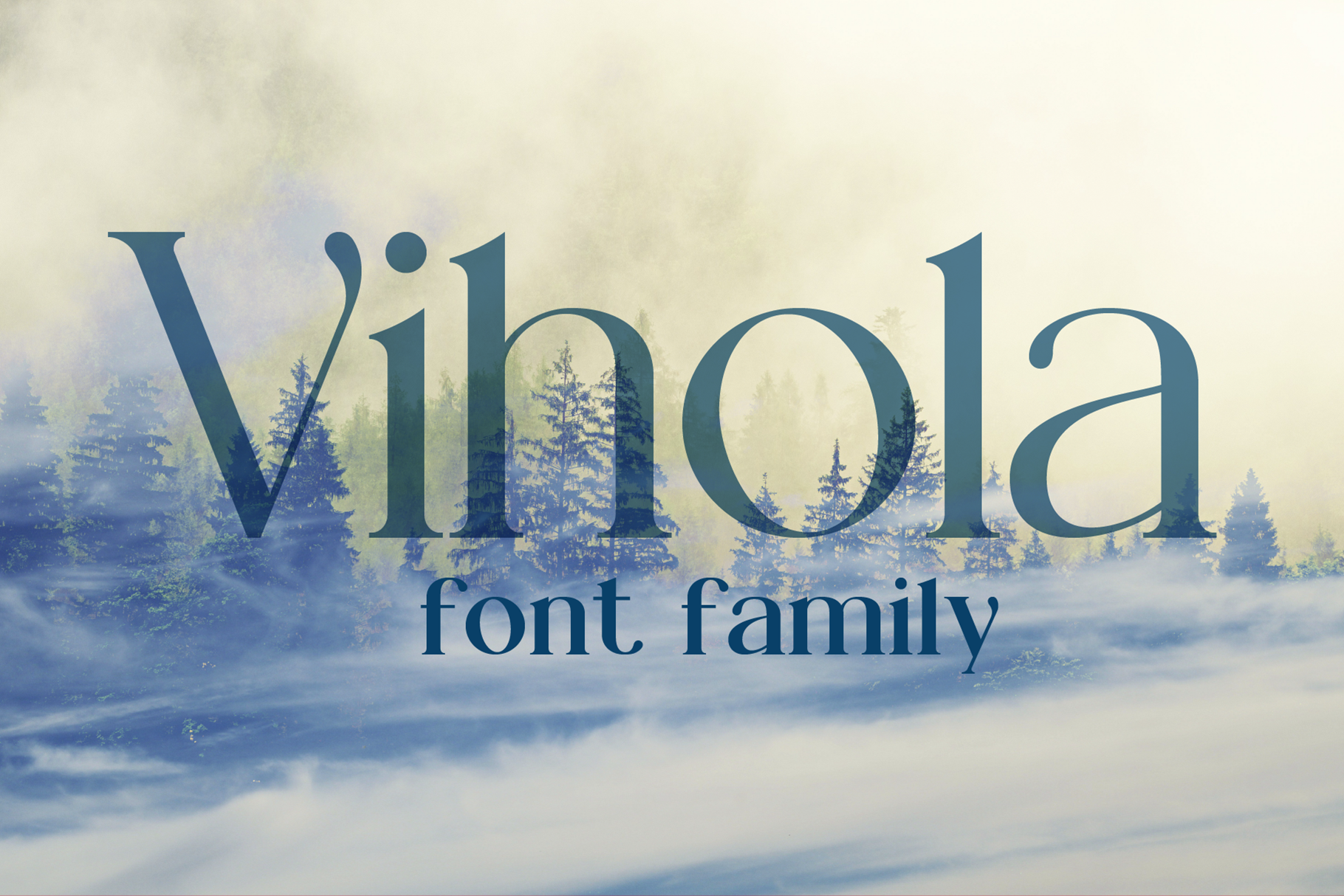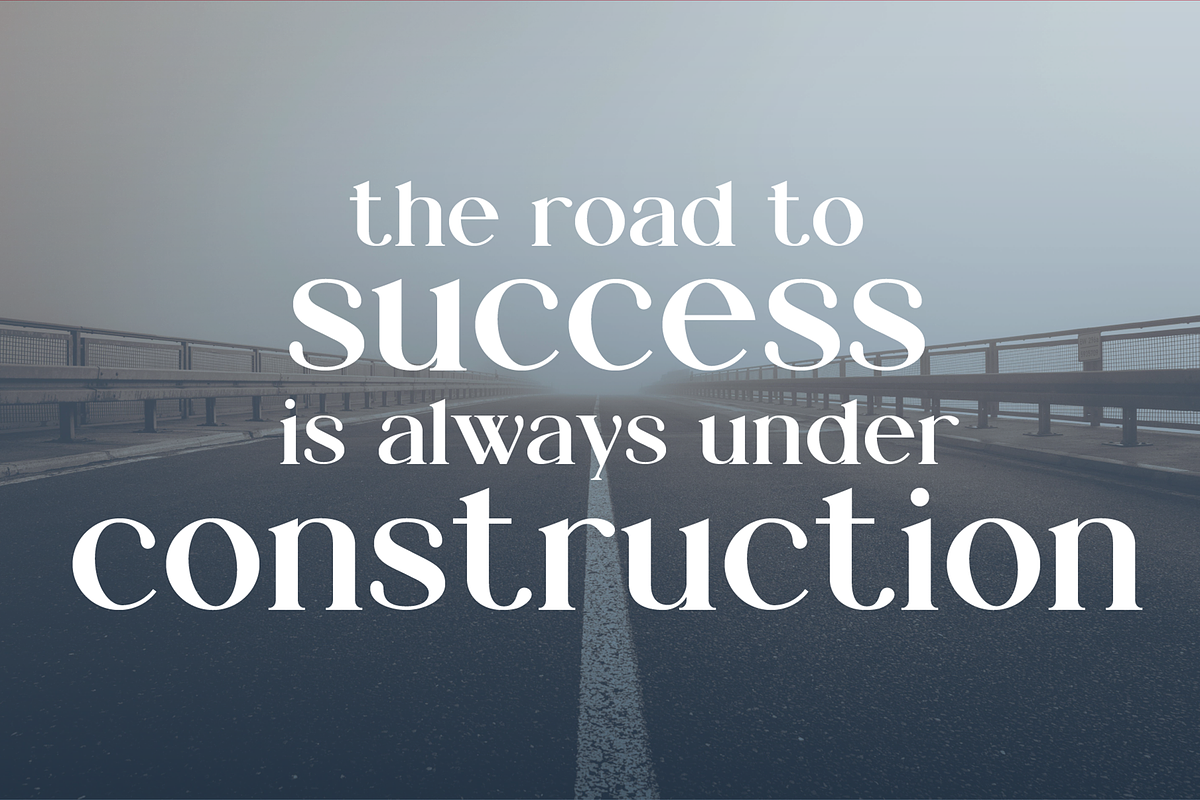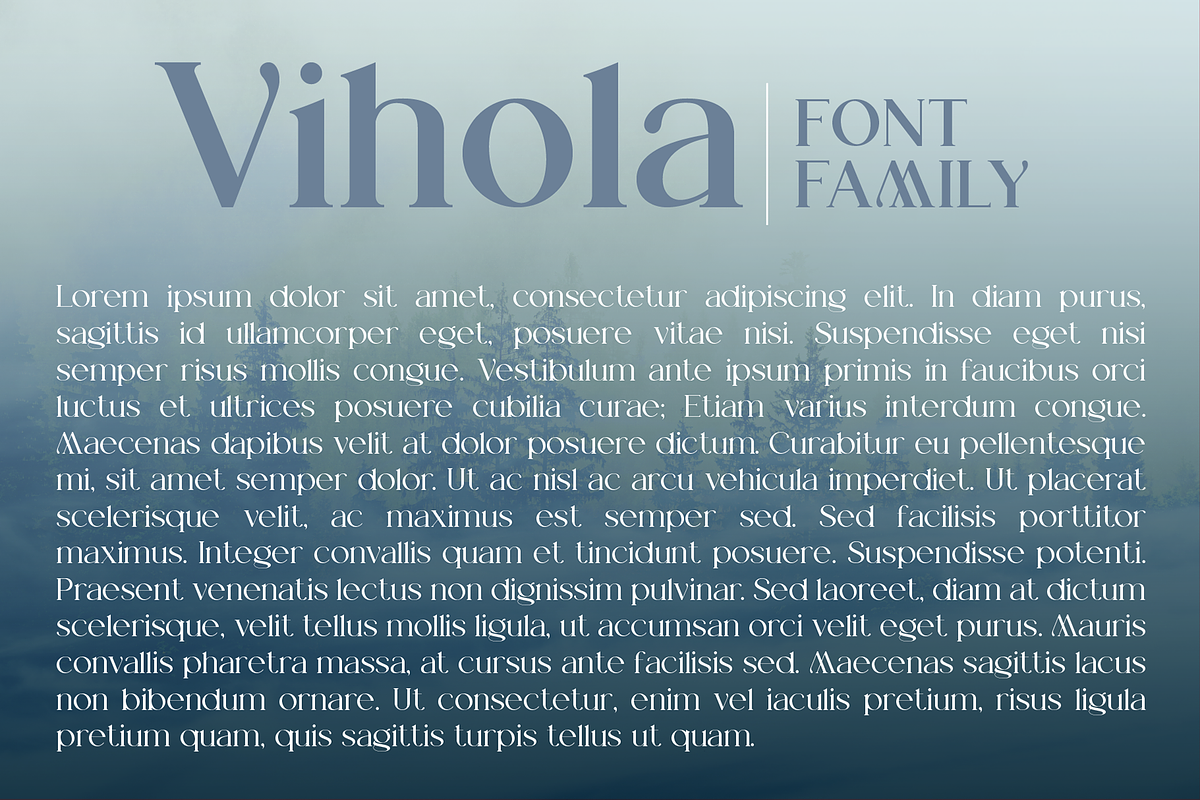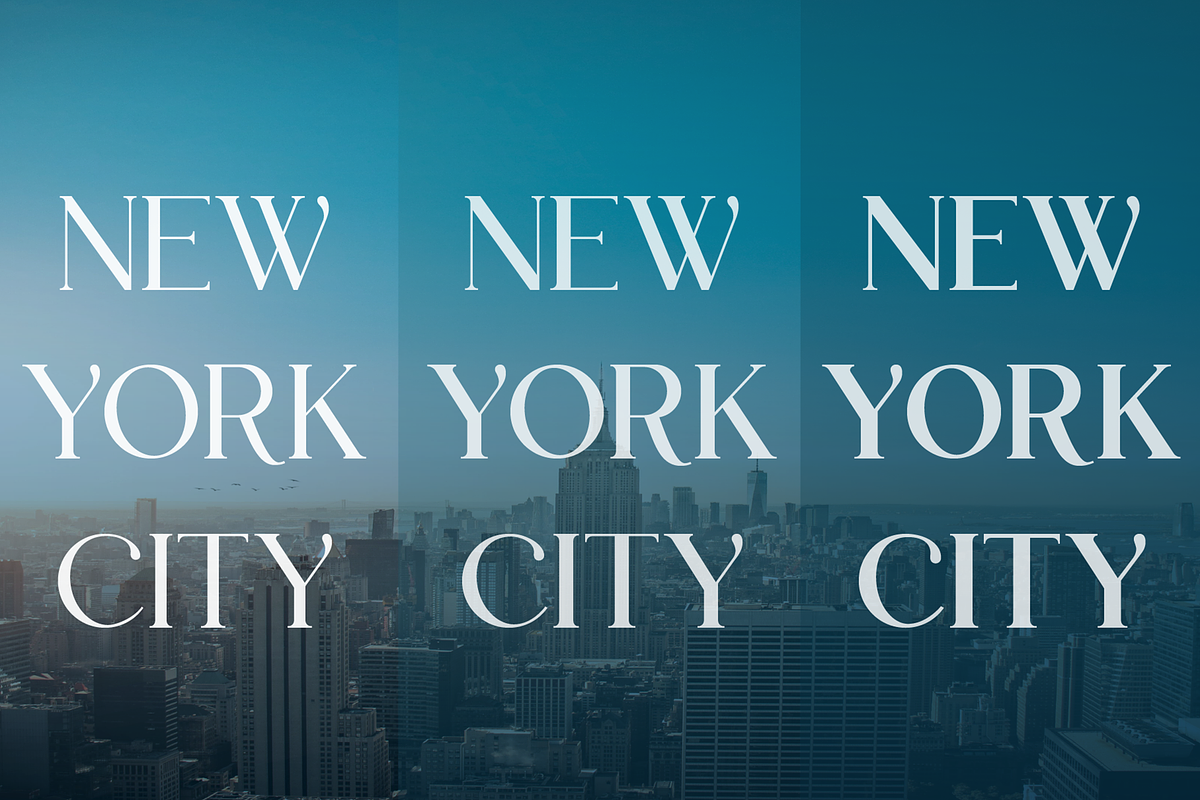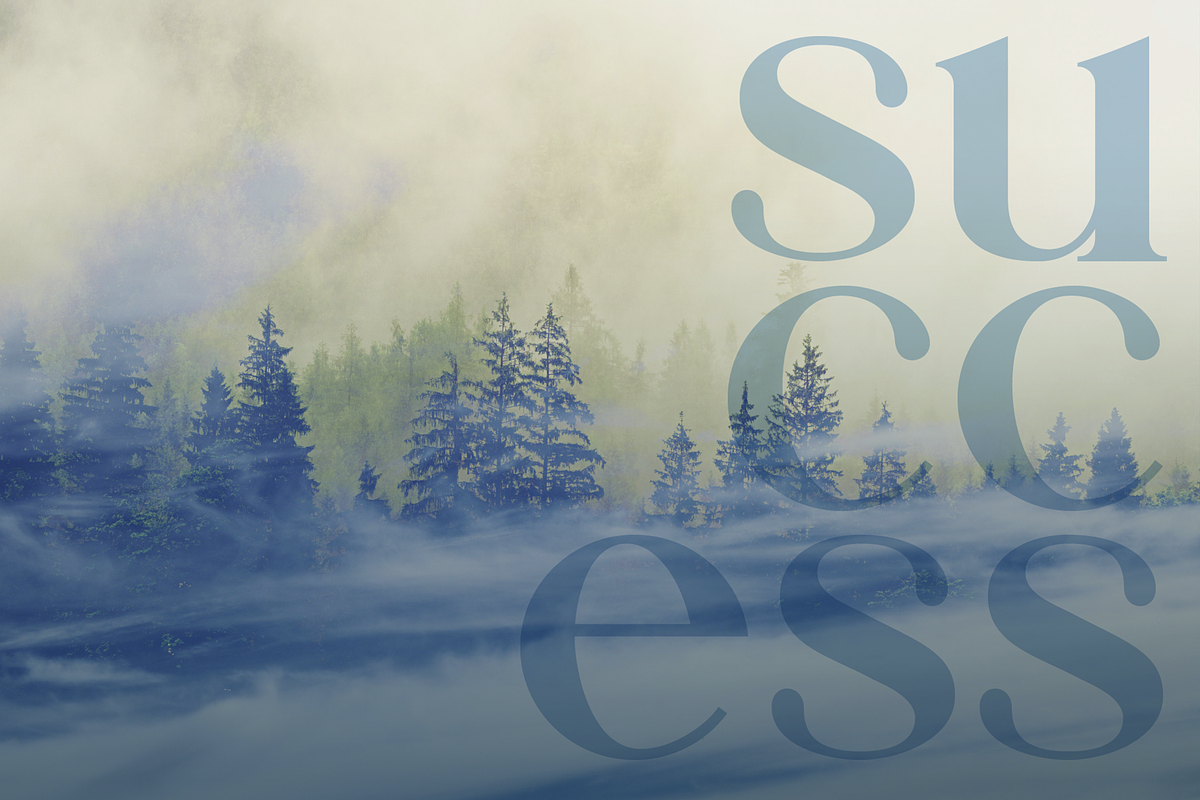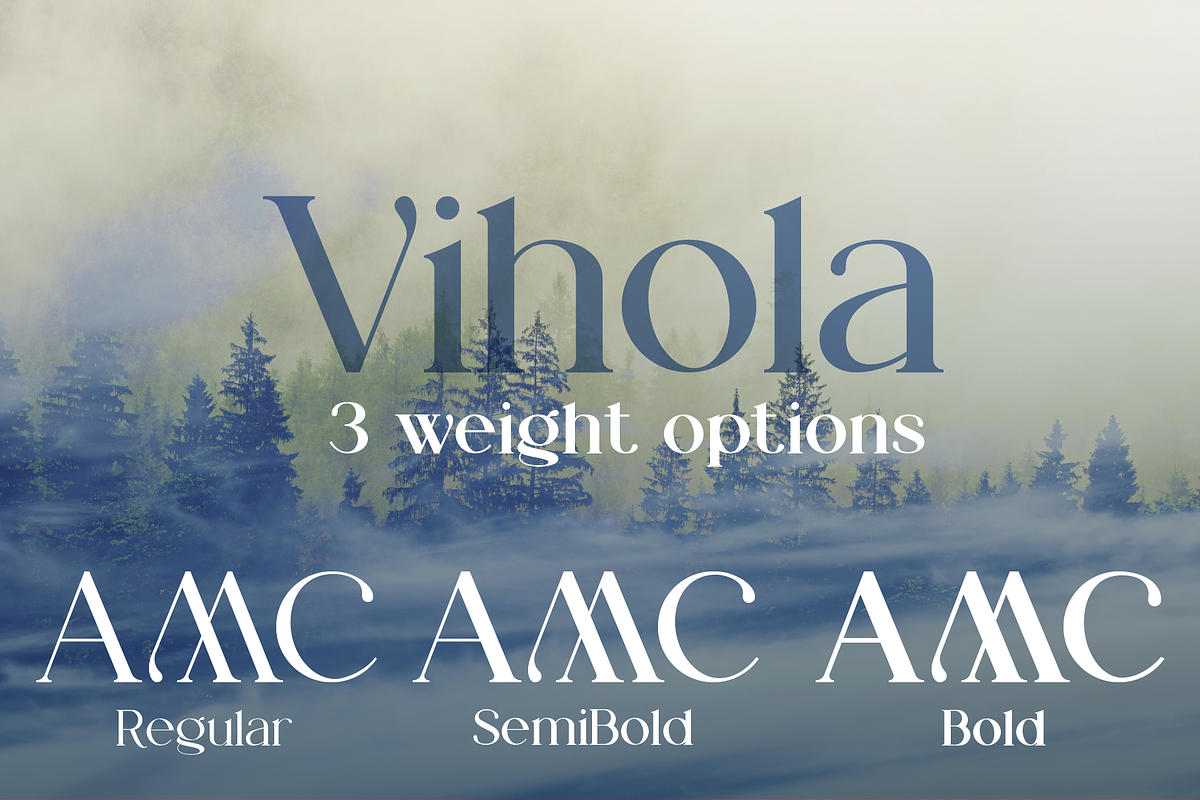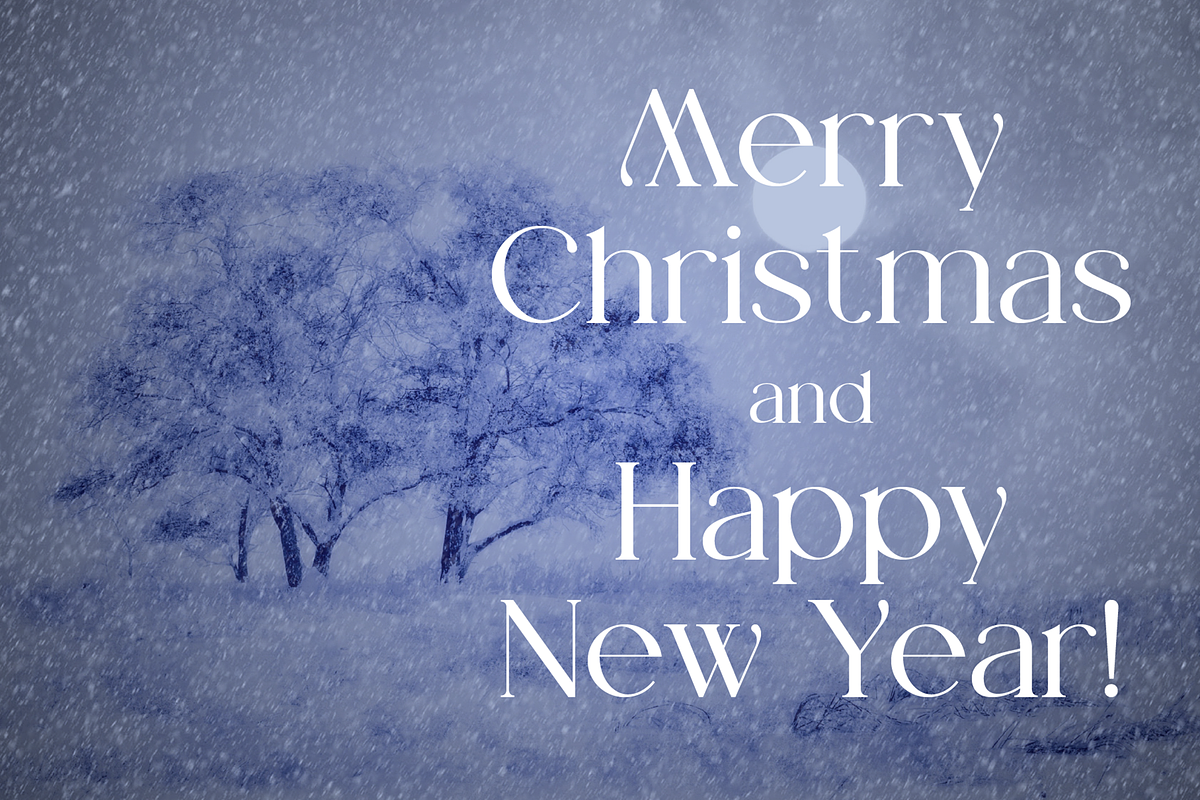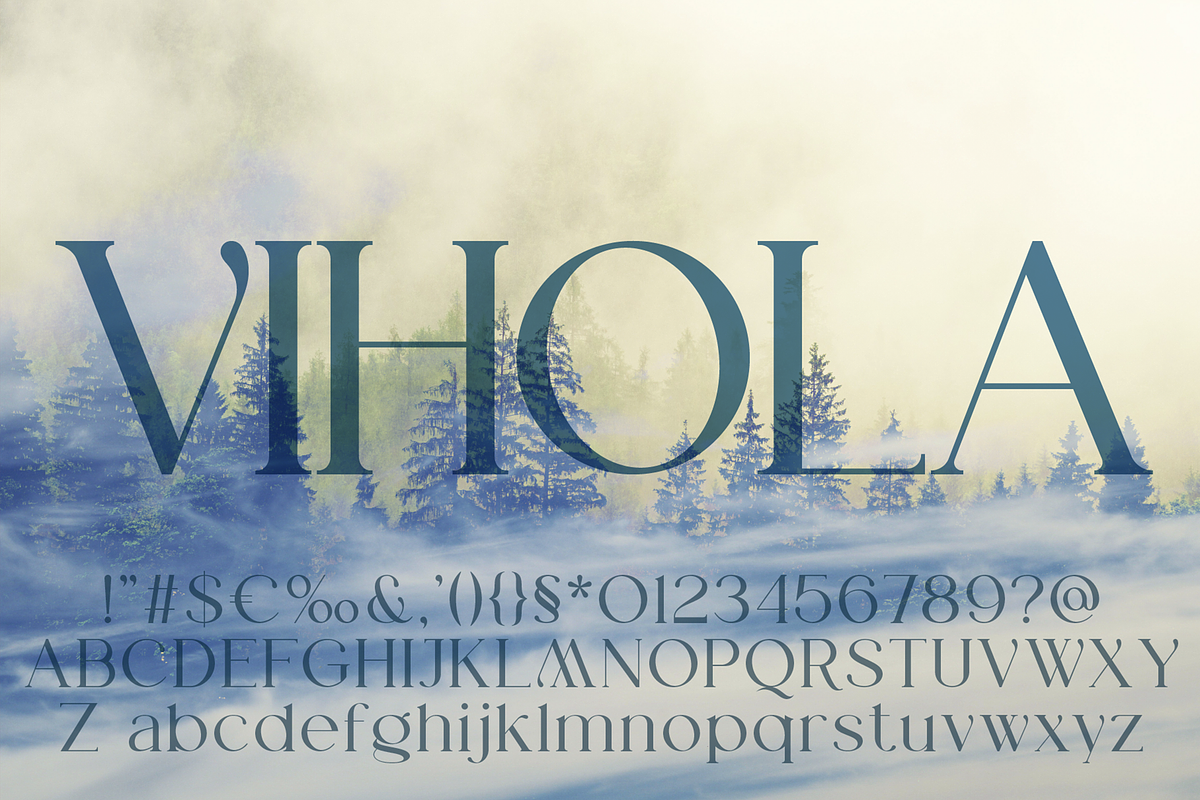
Vihola Font family
Vihola is a modern and elegant serif font that features both upper and lower case characters, supporting a wide range of scripts including Latin, Cyrillic, Latin Eastern Europe, Turkish, Baltic, and more, with over 500 symbols available. The Vihola family includes three font styles: Regular, SemiBold, and Bold, making it versatile for various applications. This font is ideal for branding, poster creation, and other graphic design projects, as well as for word processing tasks, ensuring a polished and professional appearance in all your written materials.